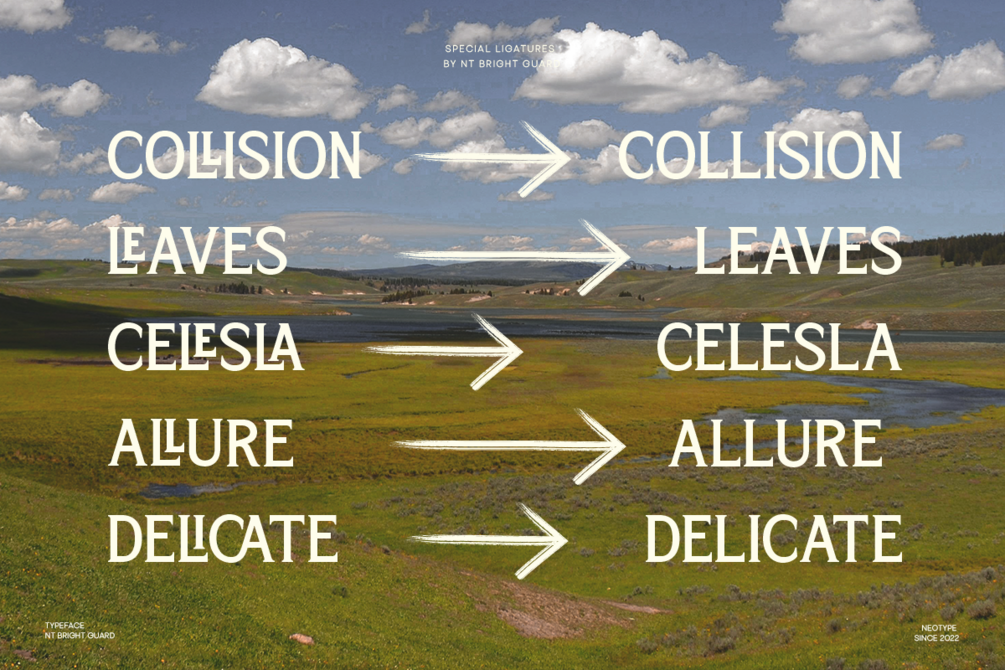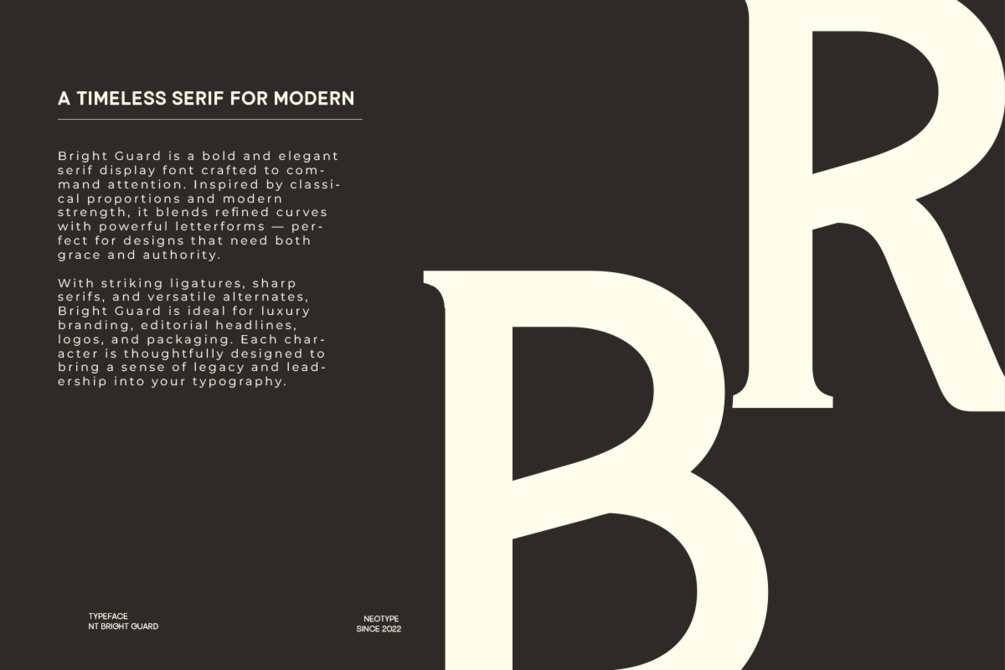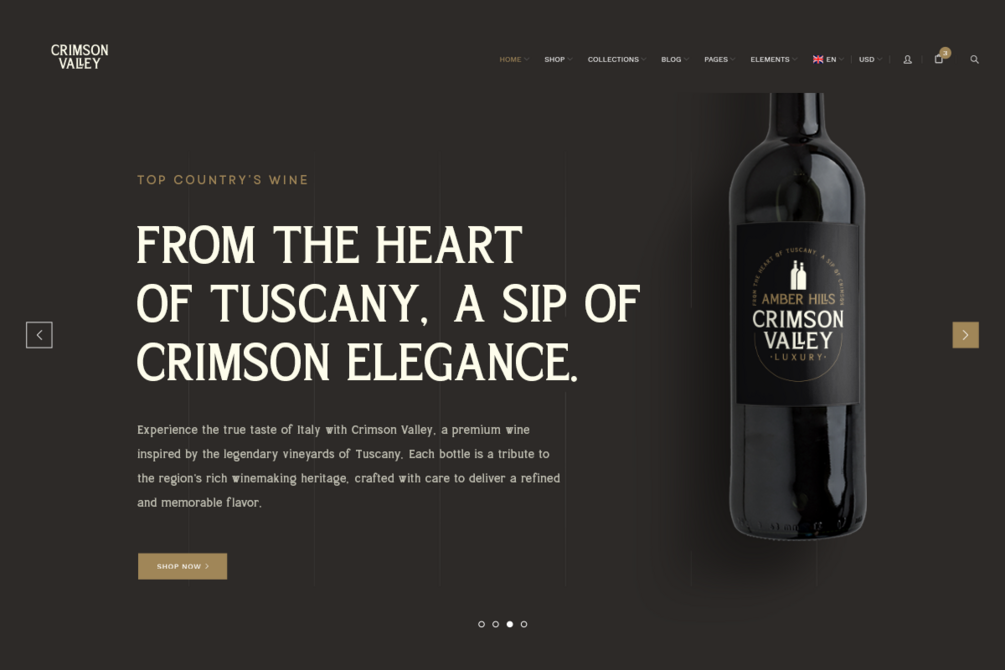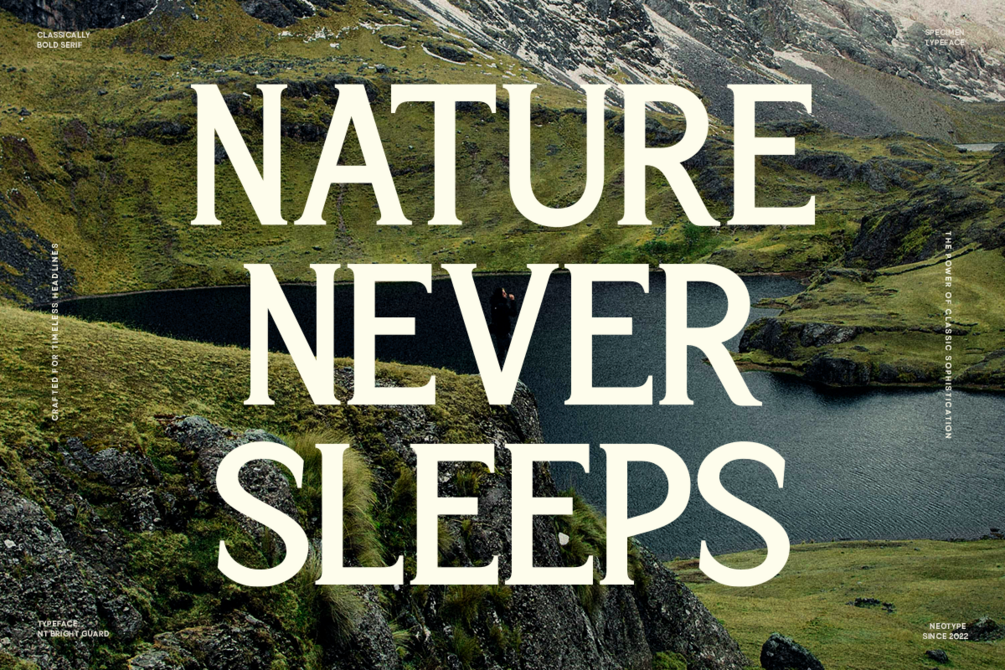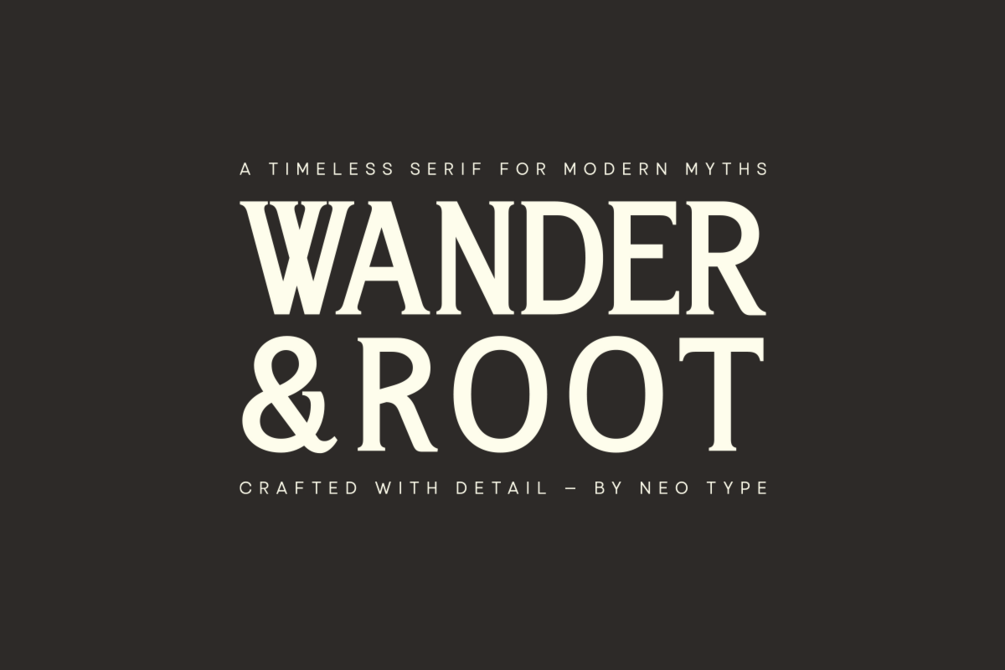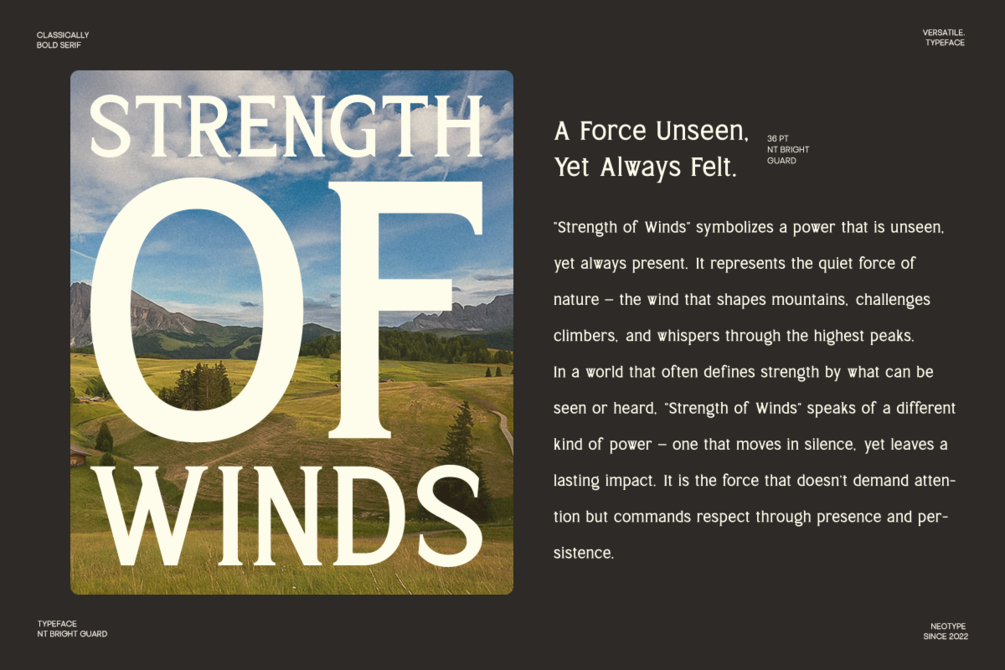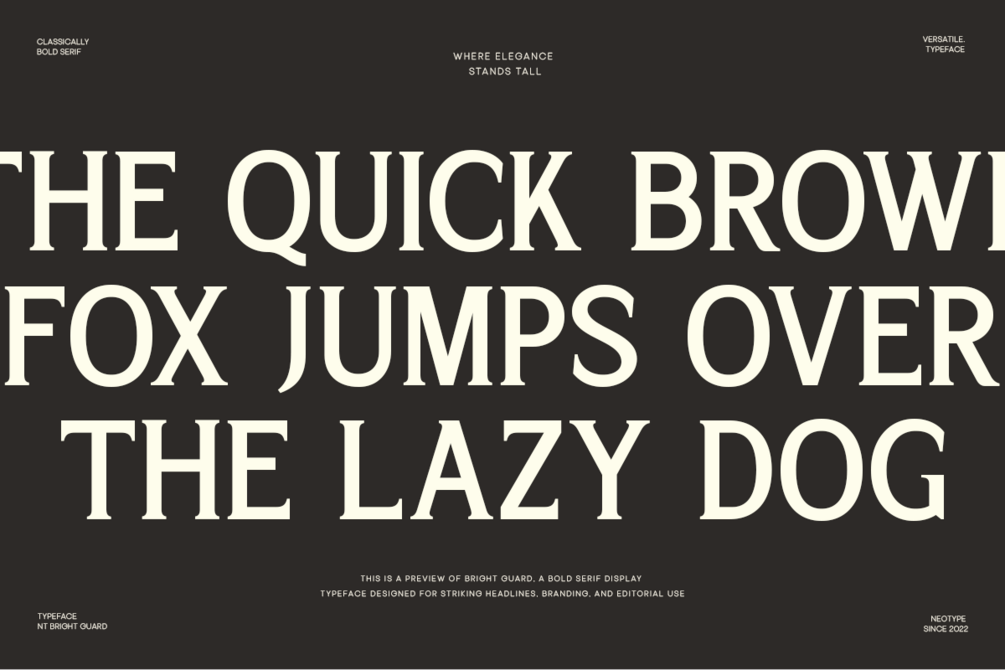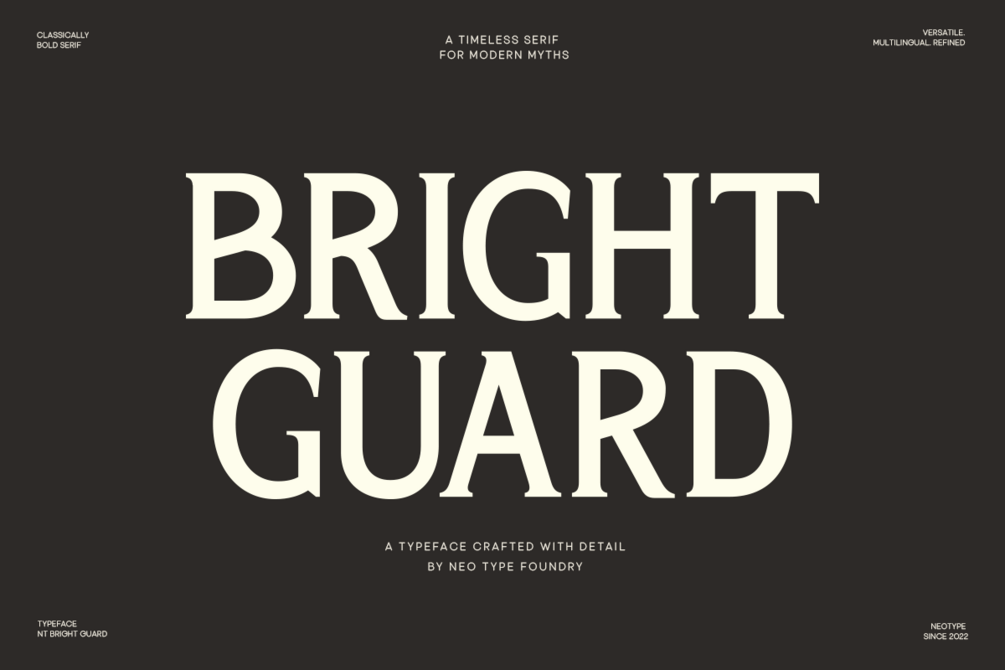
Bright Guard - Elegant Serif Display
Bright Guard is a bold and elegant serif display font crafted to command attention. Inspired by classical proportions and modern strength, it blends refined curves with powerful letterforms — perfect for designs that need both grace and authority.
With striking ligatures, sharp serifs, and versatile alternates, Bright Guard is ideal for luxury branding, editorial headlines, logos, and packaging. Each character is thoughtfully designed to bring a sense of legacy and leadership into your typography.
Features:
• All caps
• Stylistic Alternates & Ligatures
• Numerals & Punctuation
• Accented characters
• Multiple Languages Supporte